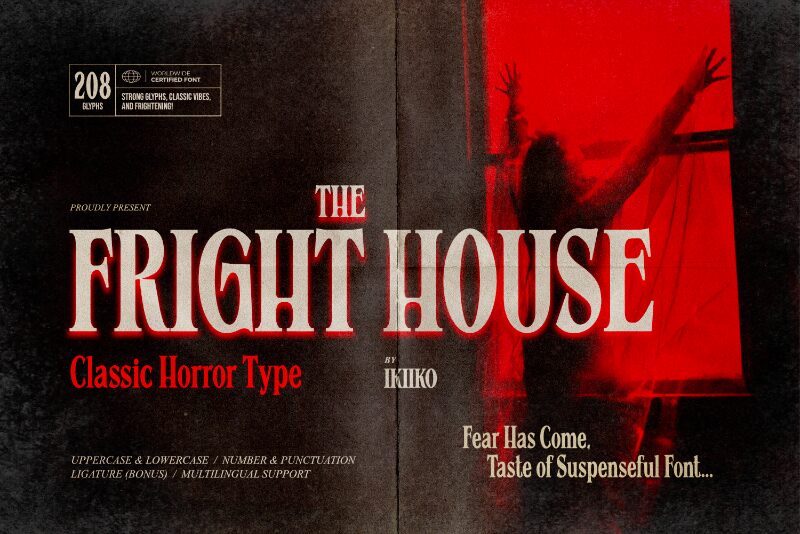
The Fright House DEMO
The Fright House font by Ikiiko Type is a retro display font with a condensed style. It features classic, sturdy style that evoke historical context. Stemming from traditional letterpress typography and shop signs, the typeface connects old-fashioned fonts with a modern feel.